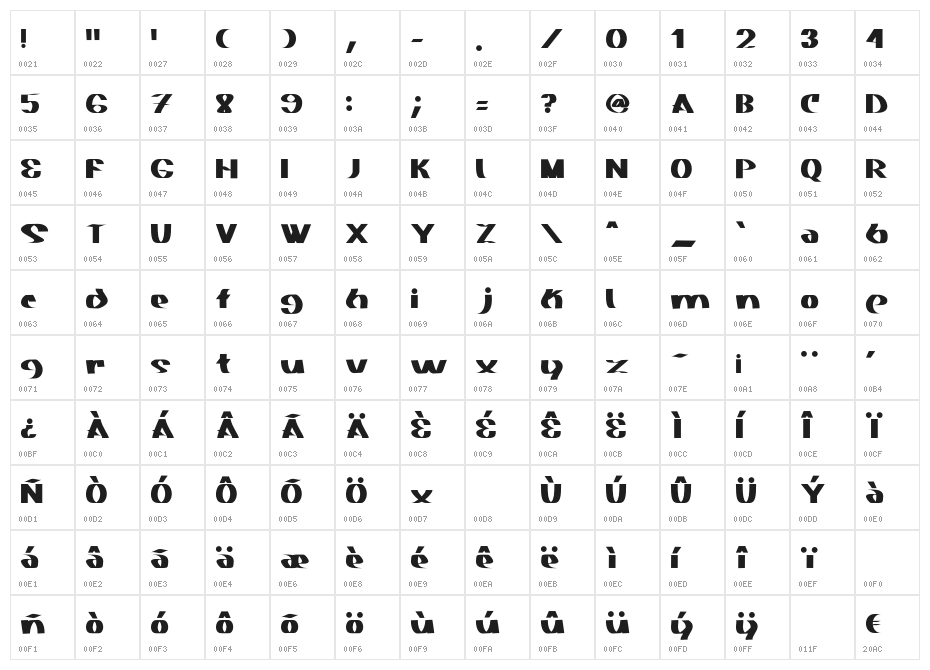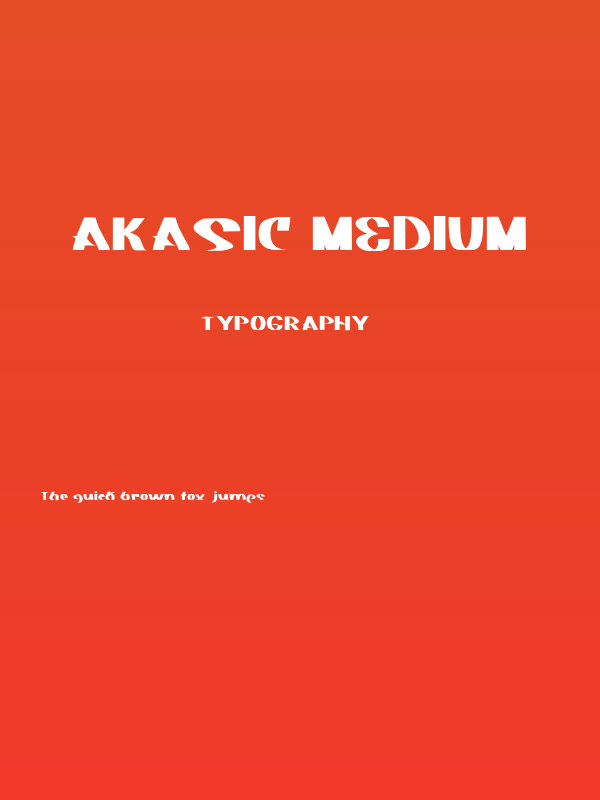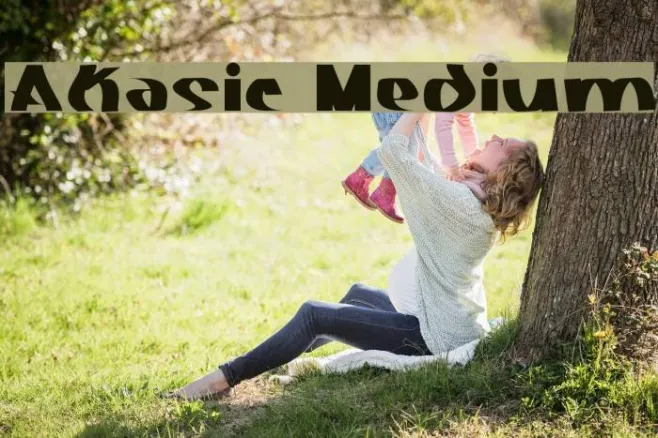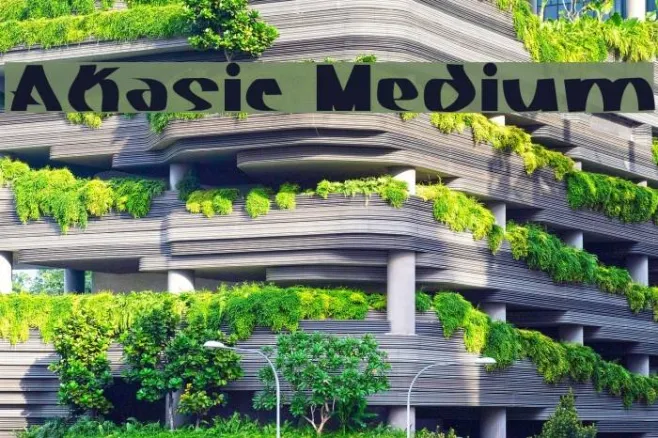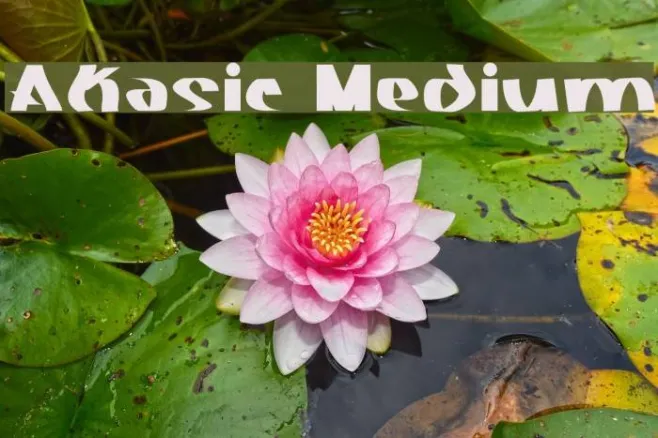
Akasic Medium Font
Akasic Medium Description
This font features a bold and dynamic style with a strong presence. The characters are designed with a unique blend of sharp angles and smooth curves, creating a striking visual impact. The uppercase letters are particularly bold, with a slightly condensed appearance, while the lowercase letters maintain a consistent flow with a more rounded form. The numerals are equally bold, ensuring readability and consistency across different uses. Special characters are included, maintaining the font's overall aesthetic. This font is ideal for projects that require a modern and eye-catching design.